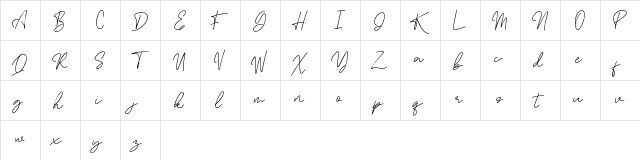
Attahost Regular
| Designer | Deemak Daksina |
Design Context for Attahost Typeface
Attahost is a composed and adaptable typeface that performs quietly and consistently across a wide range of design contexts.